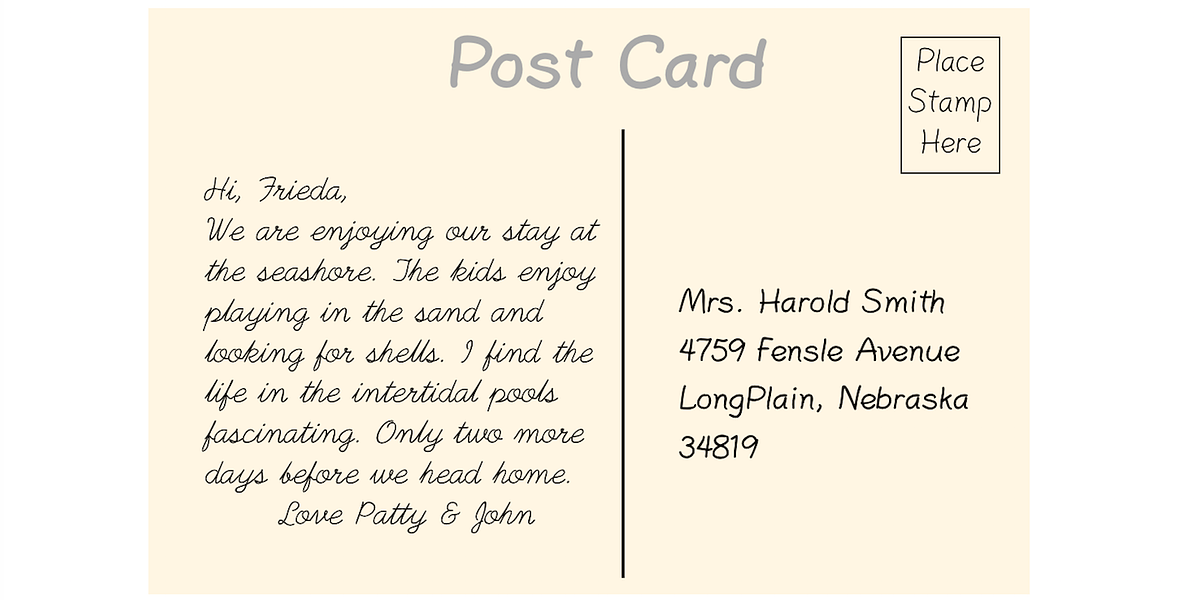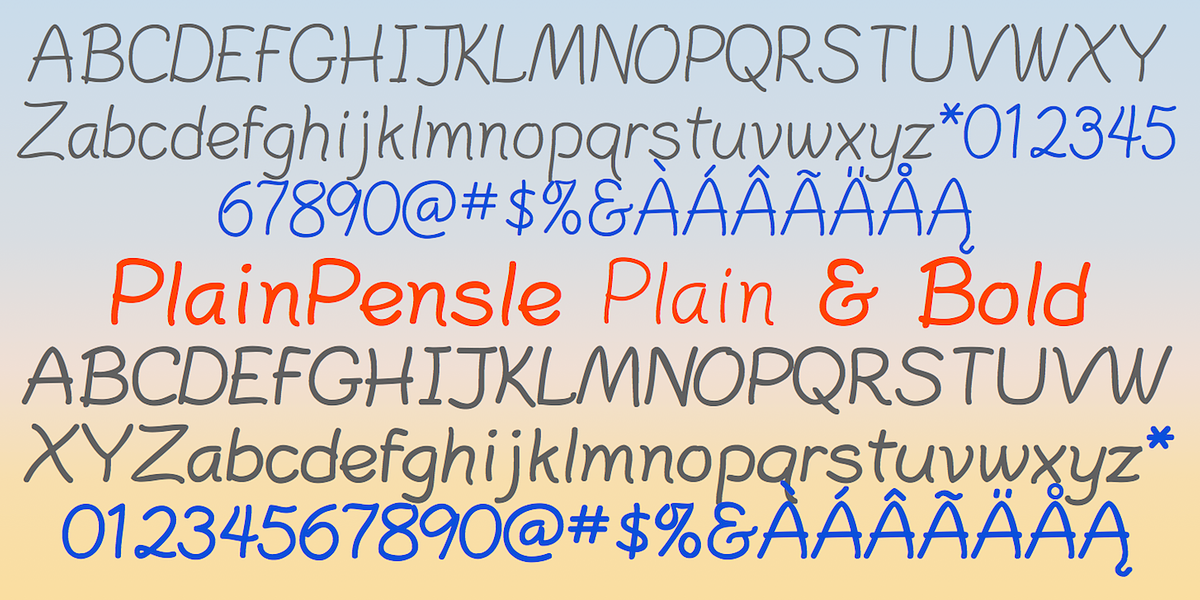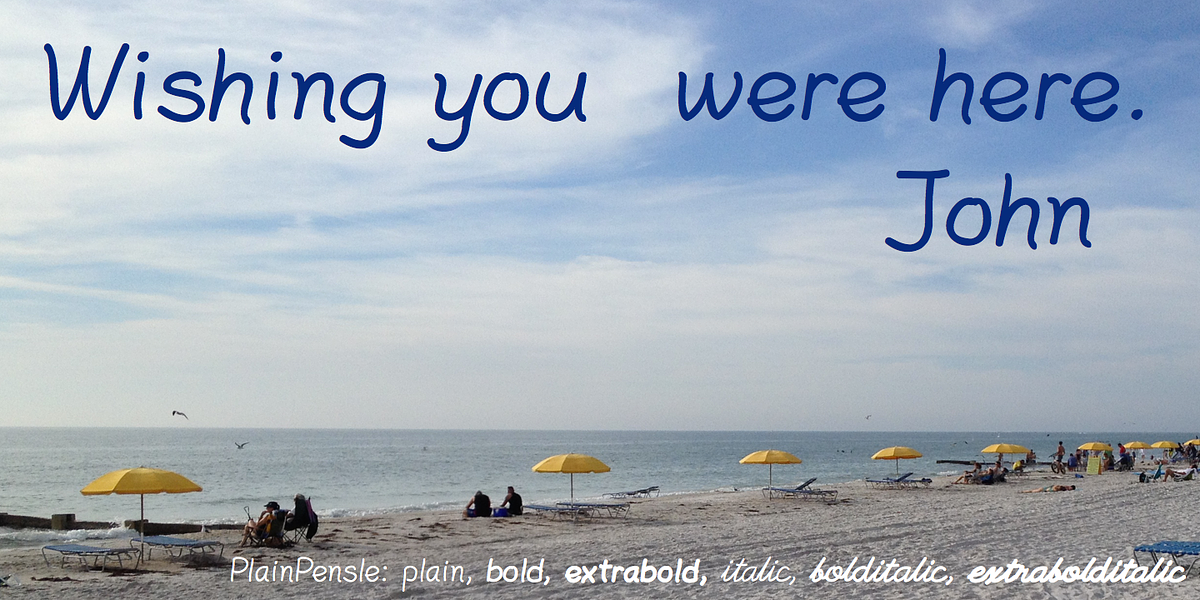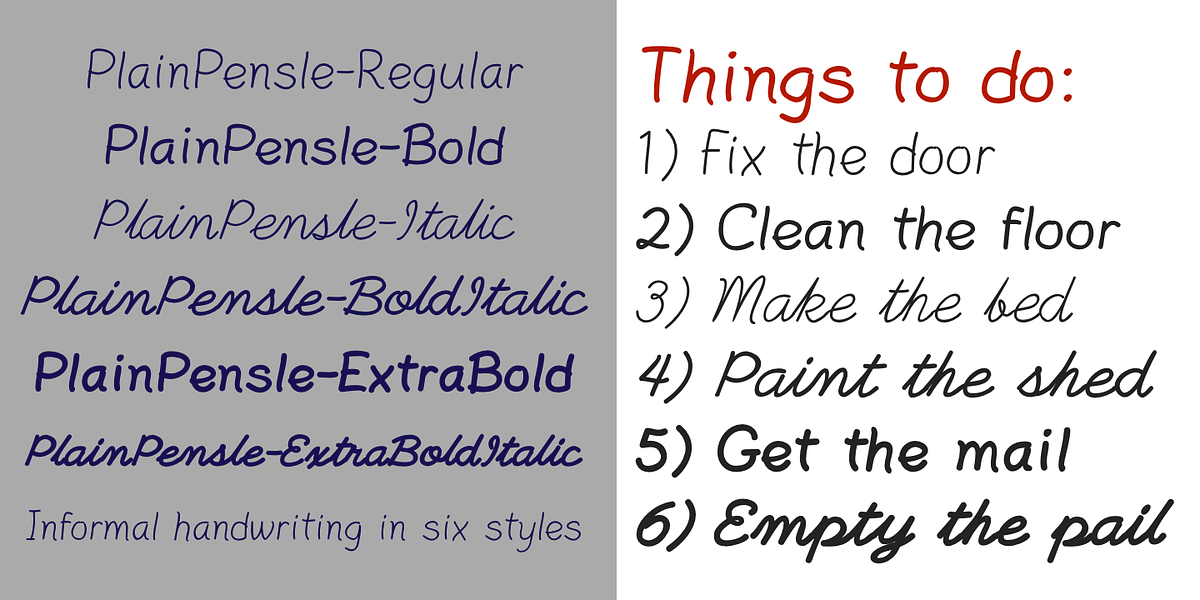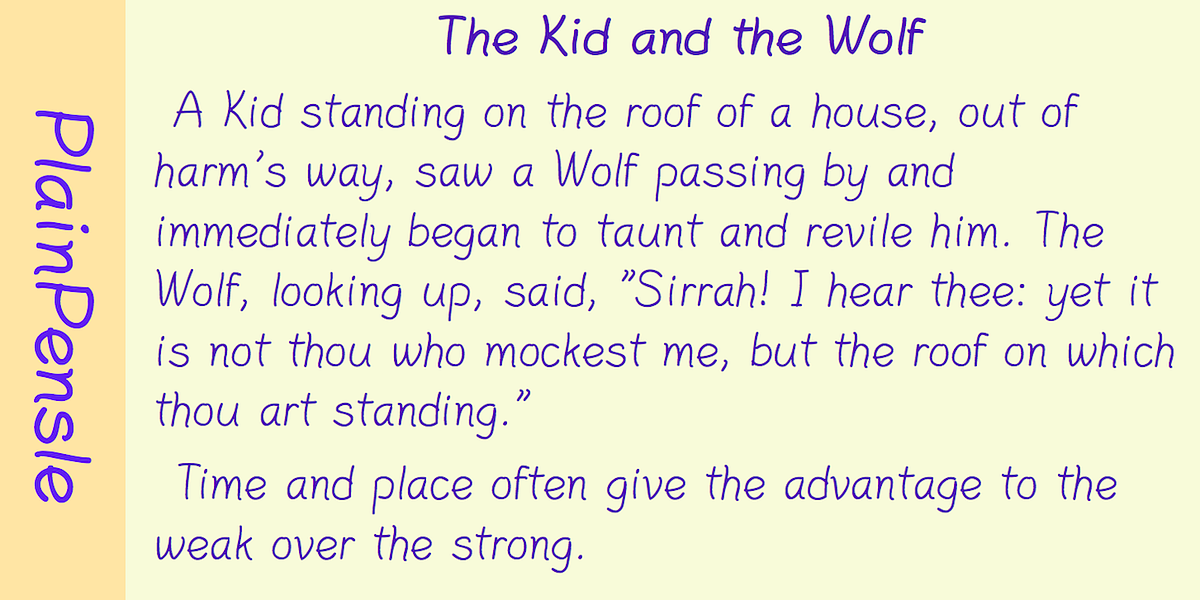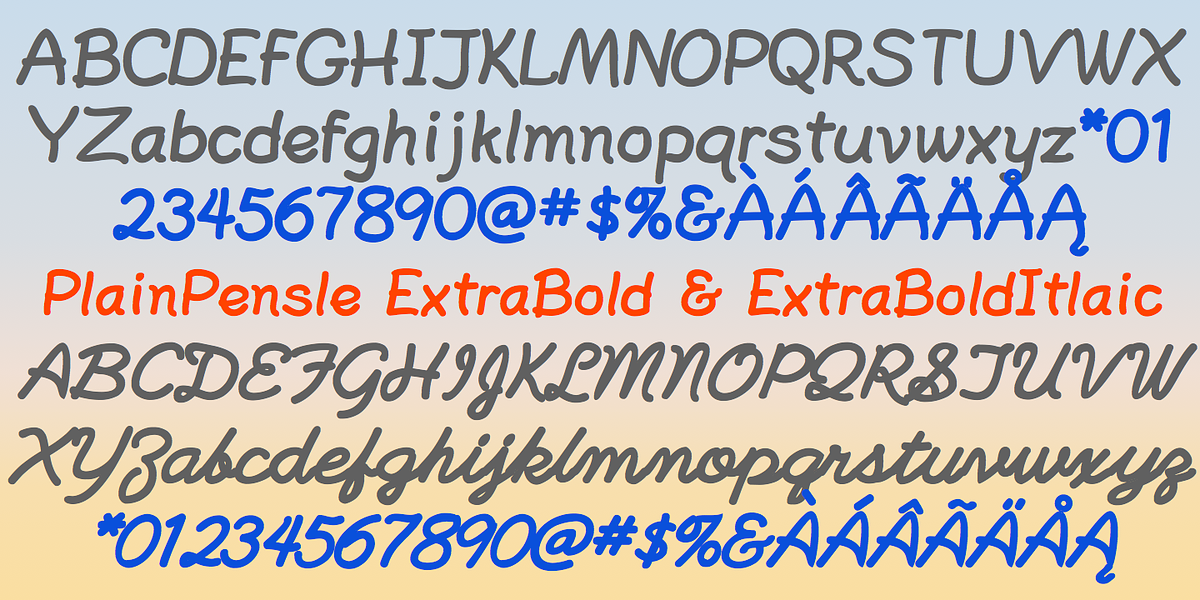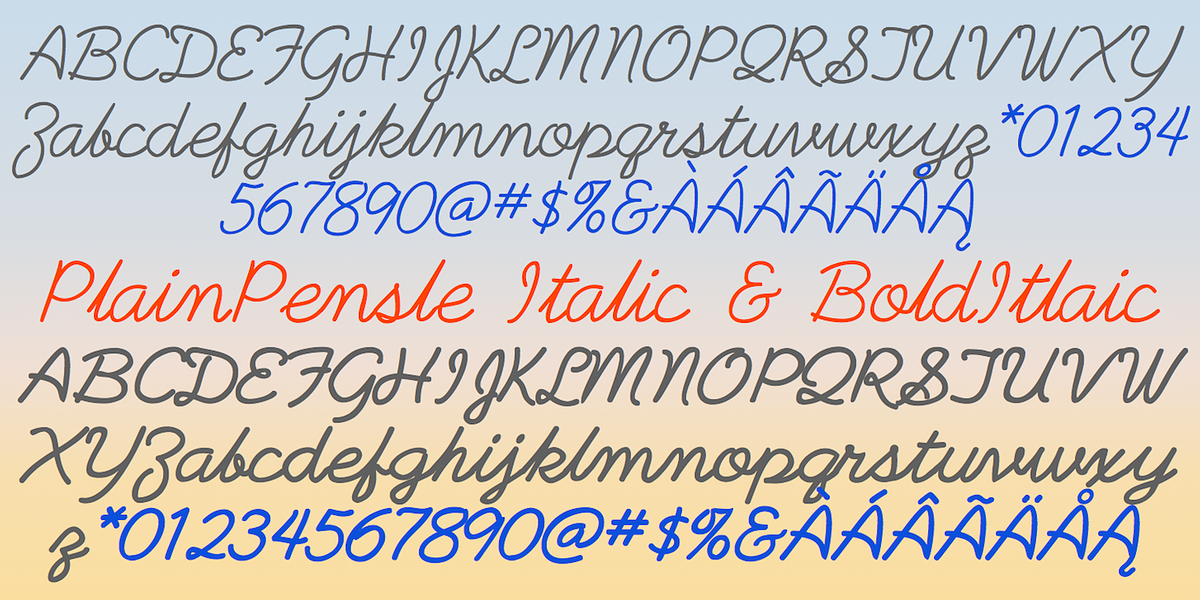
PlainPensle
PlainPensle is a handwriting font designed to resemble the look of text written with a pencil or ballpoint pen. It includes both plain and bold styles featuring hand-printed letters, as well as italic and bold italic styles with simple cursive writing. This font's casual and personal aesthetic makes it suitable for informal applications such as notes, personal letters, and designs requiring a handwritten touch.